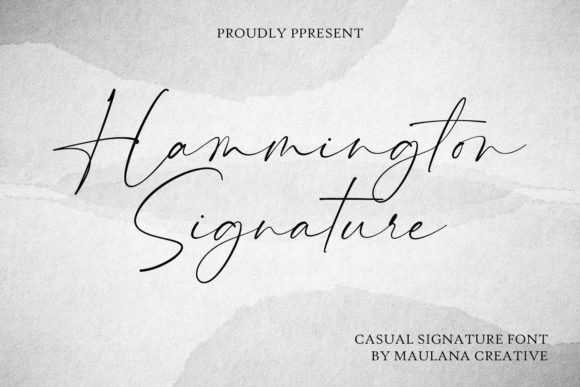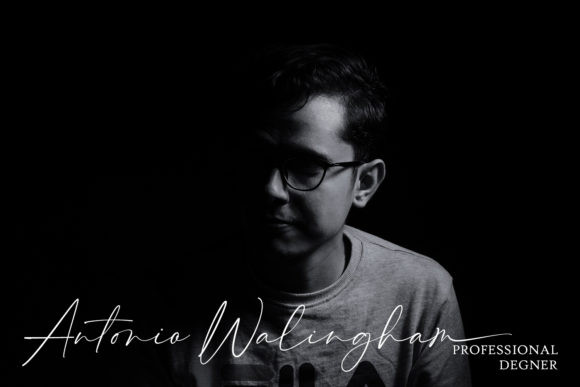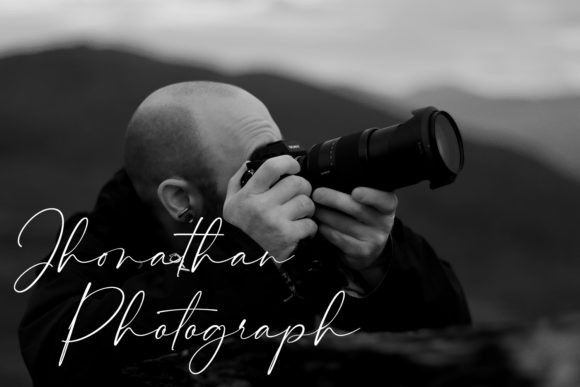
Hammington Signature Font
Hammington Signature is a delicate, smooth and thin lettered handwritten font. It can be used for various purposes such as logos, wedding invitations, headings, t-shirts, letterhead, signage, labels, news, posters, badges and so much more.